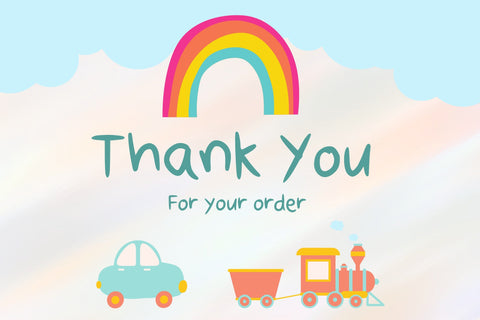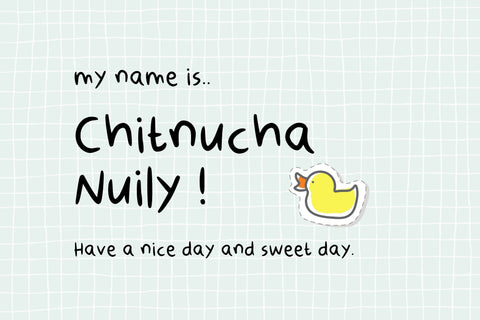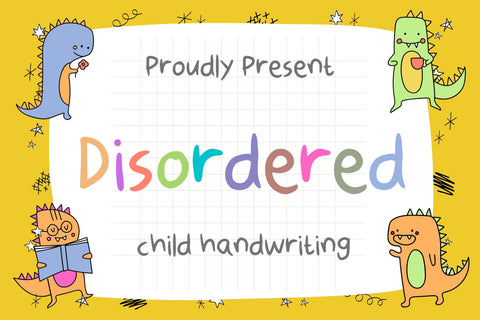
Disordered Font
Disordered is a child Handwriting Font. Its cute and friendly, natural and unique style makes it incredibly fitting to a large pool of designs. The only limit is your imagination!